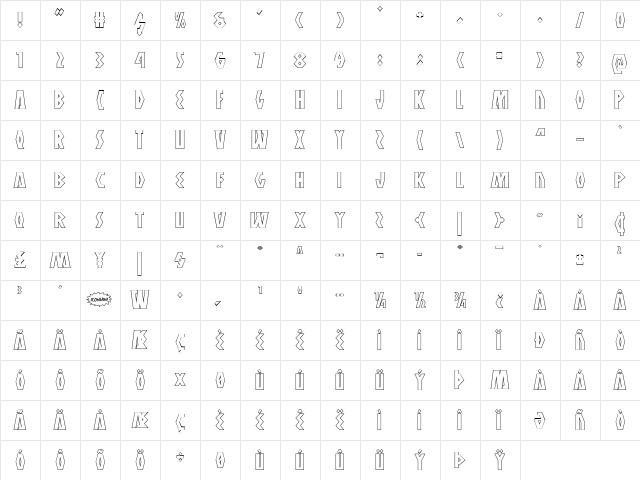
Antikythera Outline Regular
Design Context for Antikythera Outline Typeface
Antikythera Outline is built around its visual character rather than neutral utility — its distinctive forms are designed to make an impression at display sizes.
Font Pairing: Pair with a clean neutral sans-serif for body copy to let Antikythera Outline's character lead without overwhelming the composition.
Pro Tip: Use Antikythera Outline exclusively at display sizes — it was designed to be seen, not read at length. Let a neutral companion handle body copy.